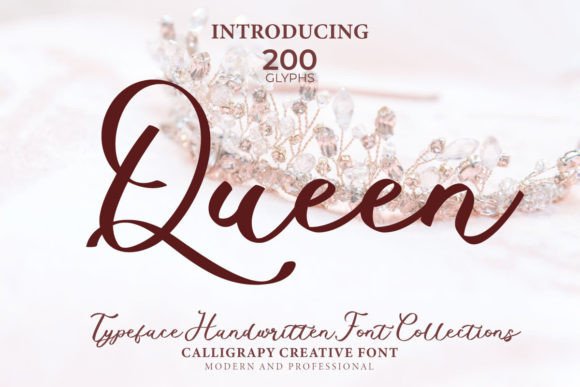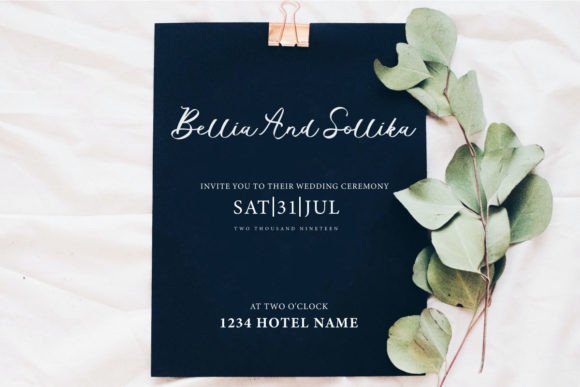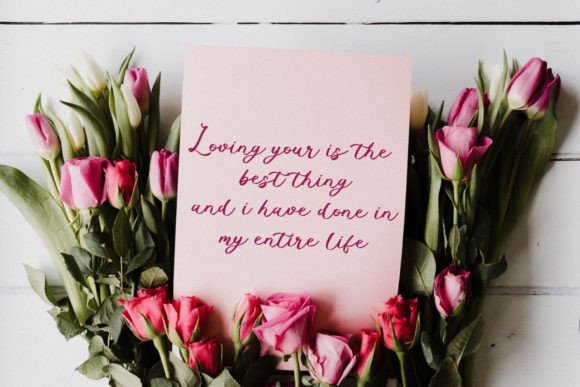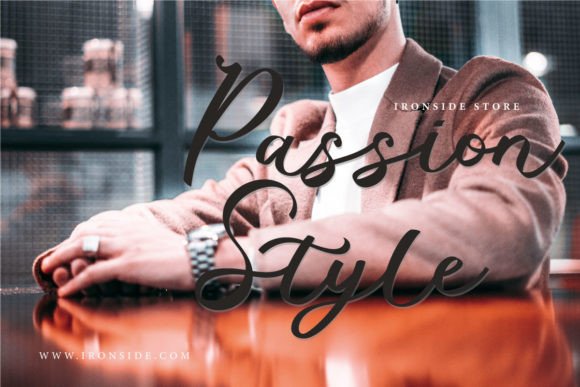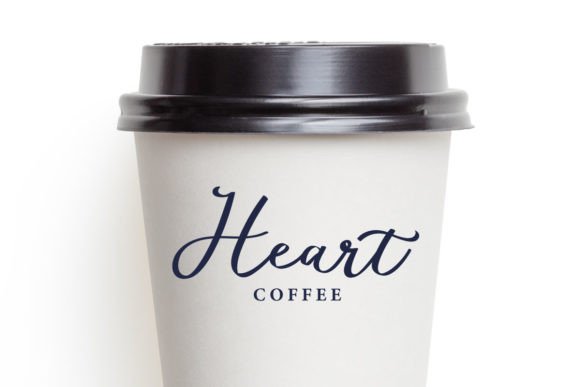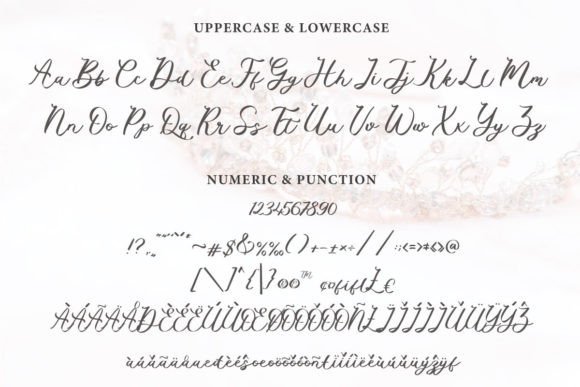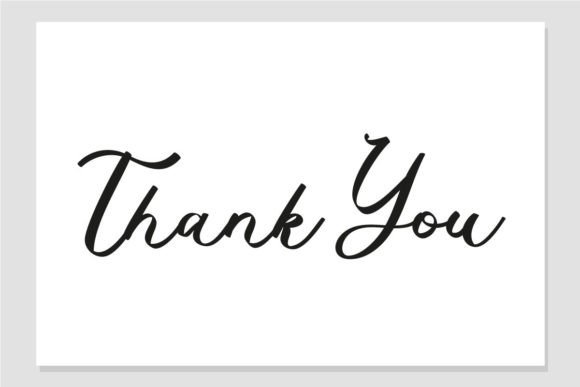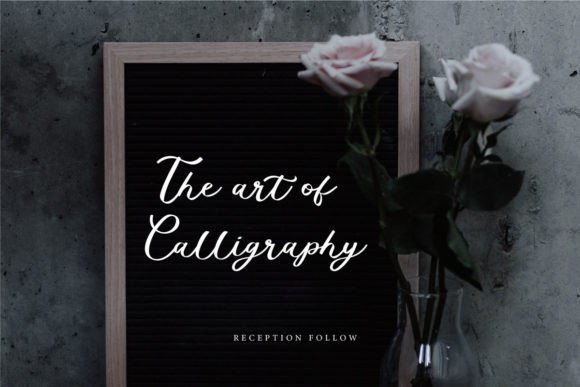
Queen Font
About Queen Font
Queen is a stunning handwritten font that embodies beauty and elegance. Its versatile and exquisite design makes it a perfect choice for a wide array of applications, ranging from wall displays to wedding invitations, social media posts, logos, advertisements, product packaging, product designs, labels, photography, watermarks, invitations, stationery, and any project where impressive typography is essential.
The beauty of Queen lies in its graceful and handwritten style, which brings a touch of sophistication to any design. Whether you are creating a wall display, where the font’s artistic elegance stands out, or designing wedding invitations that demand a blend of charm and refinement, Queen effortlessly adapts to various contexts.
In the realm of social media, Queen adds a level of allure to your posts, making your content visually captivating and engaging. Its versatility shines in logo designs, advertisements, and product packaging, contributing to a brand identity that is both impressive and memorable.
For product designs and labels, Queen lends a distinctive and artistic flair that sets your products apart on the shelves. Its use in photography and watermarks adds a personal touch, ensuring that your images are not only visually appealing but also marked with a signature style.
Invitations and stationery benefit from Queen’s beauty, as it elevates the overall aesthetic of these materials. The font’s impressive typography adds a touch of luxury and charm to these important details.
In summary, Queen is more than just a font; it’s a design asset that enhances the beauty and elegance of your projects. Its versatility makes it suitable for a wide range of applications, ensuring that whether you’re working on branding, invitations, social media, or product packaging, Queen brings an impressive typography that elevates your designs to a level of refined sophistication.